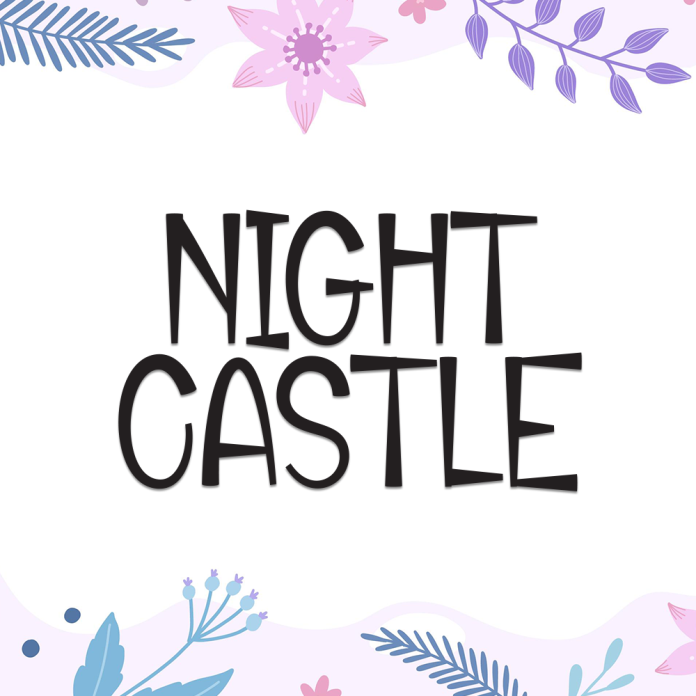
Night Castle is a bold and dramatic display font inspired by gothic towers, moonlit skies, and ancient legends. With sharp edges and tall characters, this font evokes a sense of medieval mystery and fantasy. It's perfect for horror themes, Halloween posters, fantasy book covers, and dark branding.
Gothic and fantasy-inspired display style
Bold, high-contrast letterforms
Great for titles, logos, and dramatic designs
Step into the shadows with Night Castle, and let your designs rule the dark.